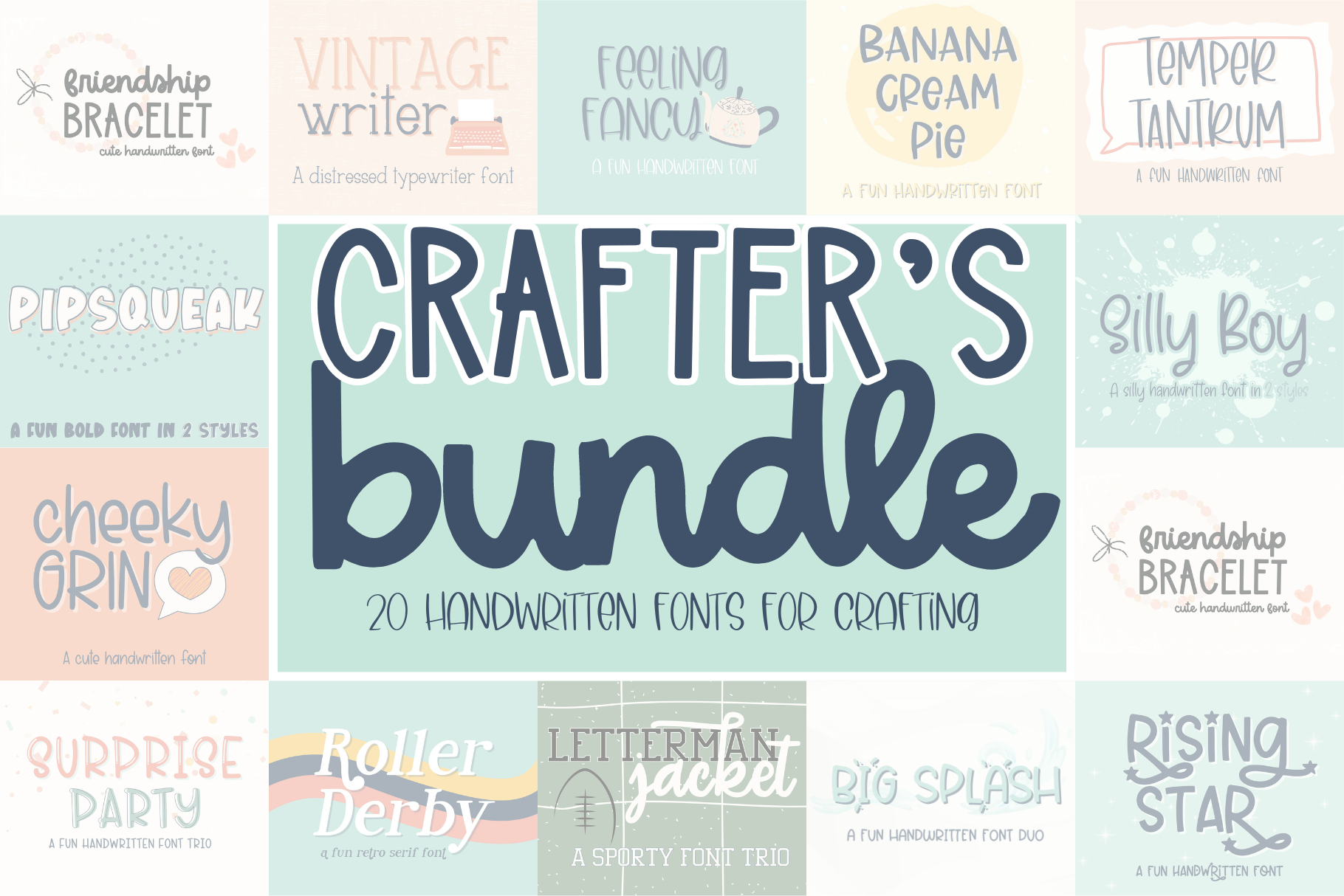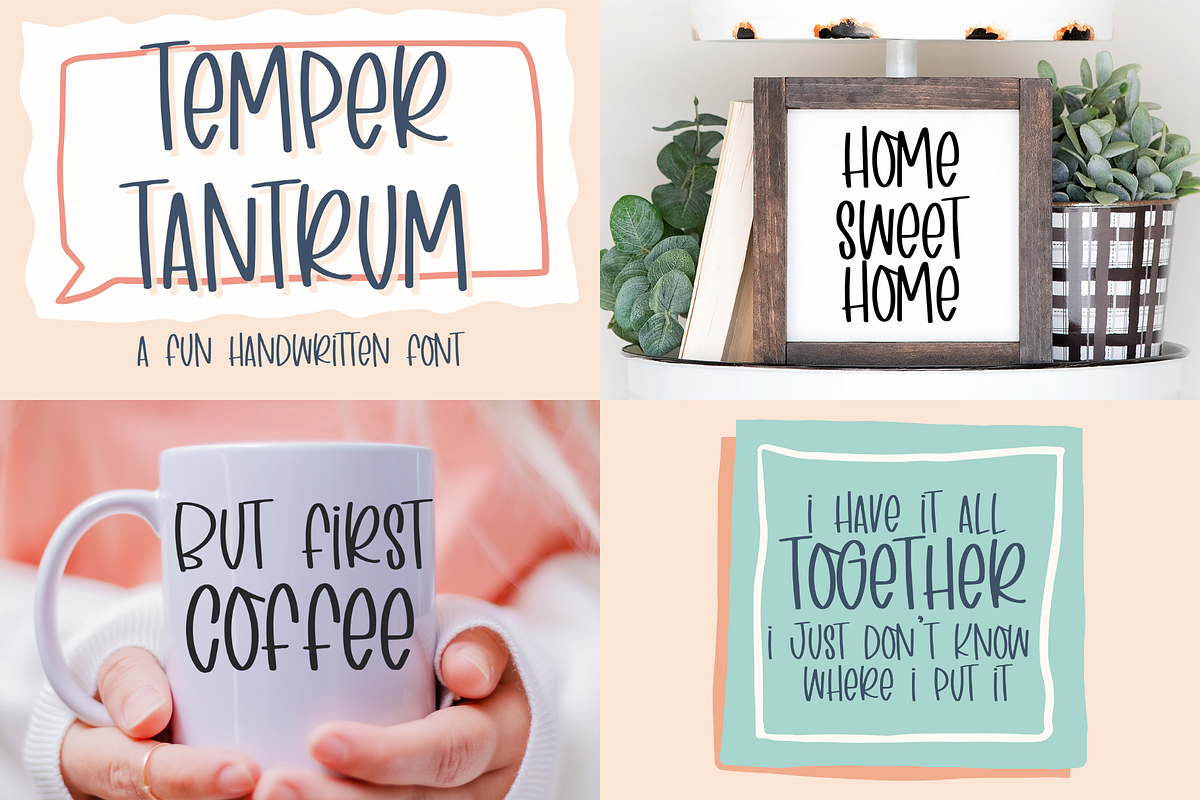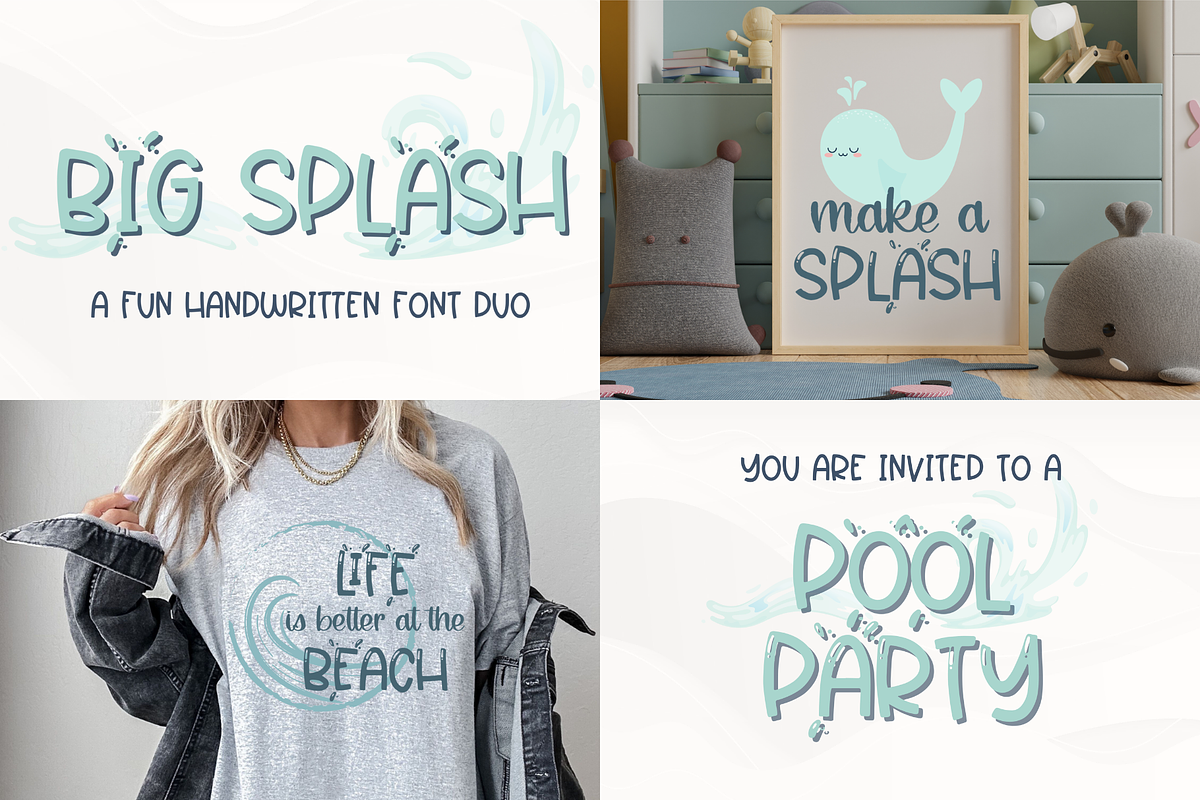
Crafter's Handwritten Font Bundle
Introducing our irresistible Crafter's Handwritten Font Bundle for Cricut, a delightful collection of handwriting fonts that is a must-have for all font enthusiasts! This comprehensive bundle includes an array of stunning cursive and script fonts, specifically designed for various creative projects. Whether you're crafting personalized items or designing digital artwork, our font bundle offers the perfect blend of style and versatility. Our fonts are compatible with Cricut SVGs, Goodnotes, Procreate, and many other programs. Elevate your creative endeavors today with our exceptional Crafter's Handwritten Font Bundle and unlock endless possibilities for your projects!
Fonts included are:
Banana Cream Pie Big Splash Solid Cheeky Grin Feeling Fancy Friendship Bracelet Letterman Jacket Outline Letterman Jacket Script Pipsqueak Outline Rising Star Roller Derby Silly Boy Outline Surprise Party Balloons Surprise Party Outlines Surprise Party TemperTantrum Vintage Writer